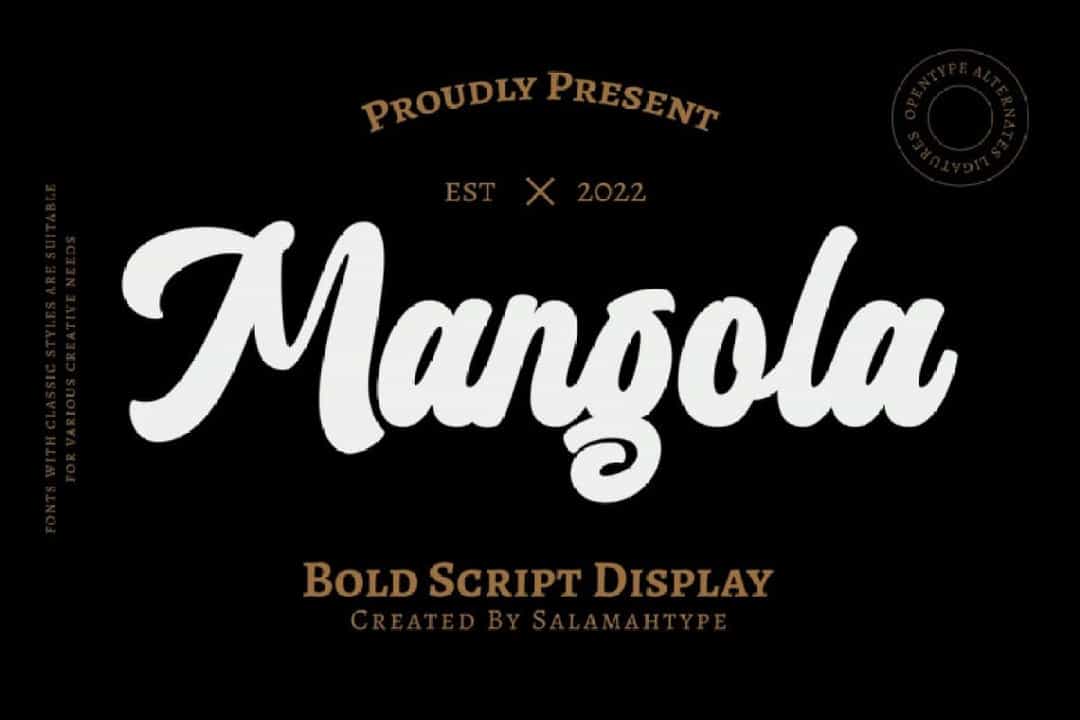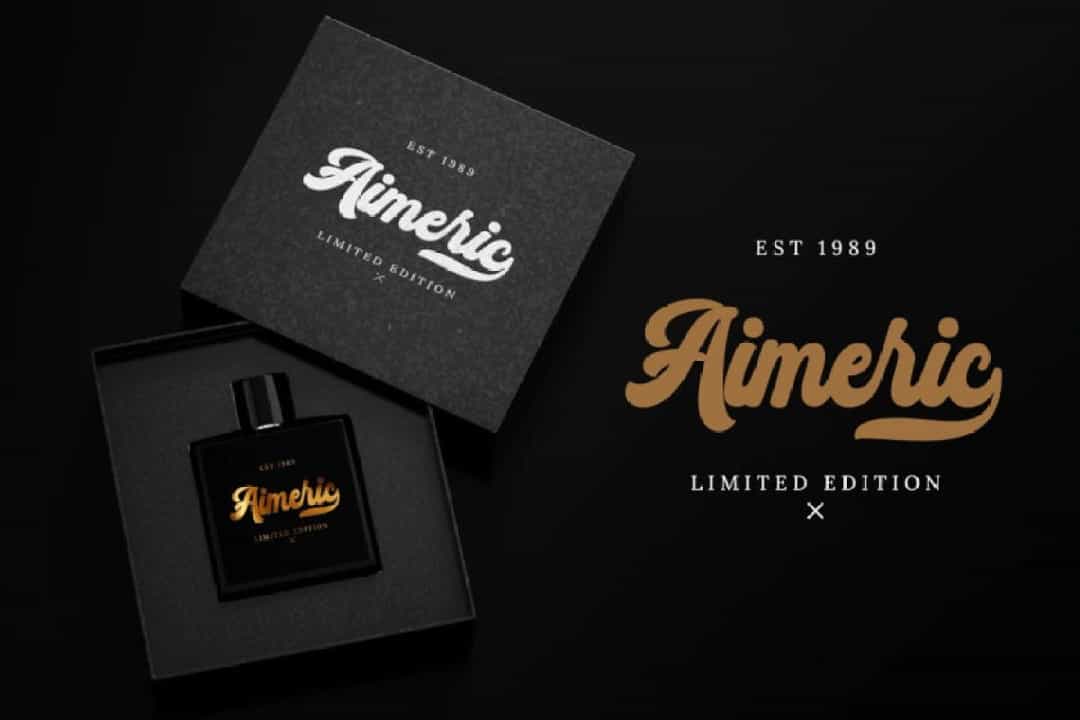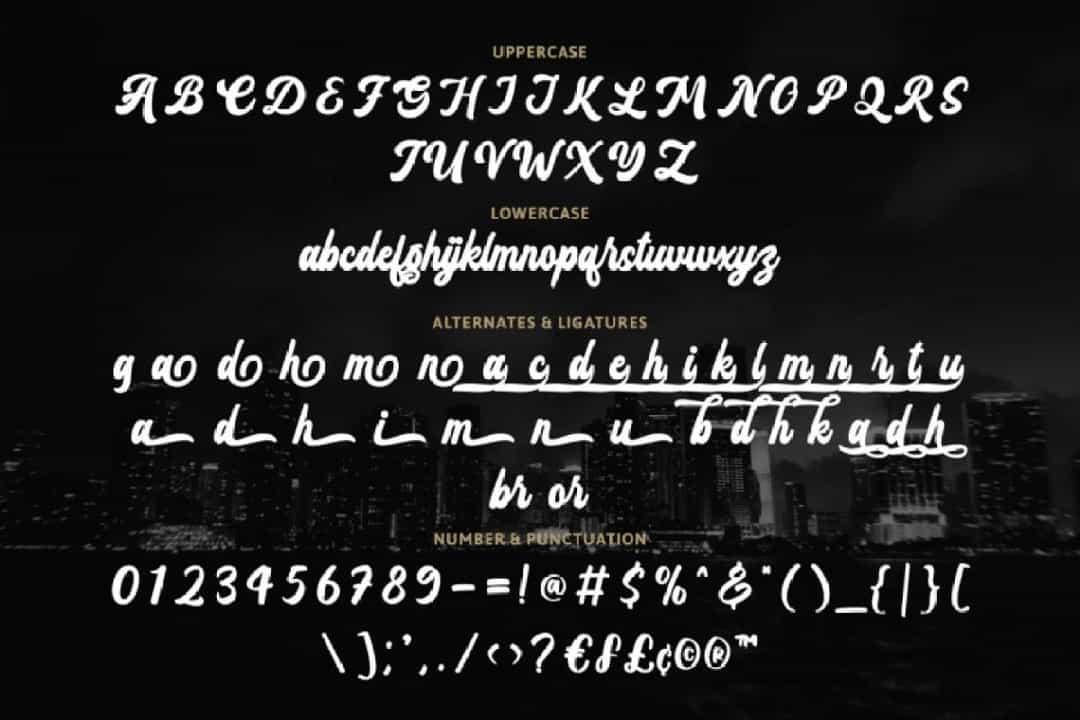
Mangola is an amazing bold script font. This font can help build brand identities through logo design and product label creation – making this font great for creating logos, packaging labels and labels for products!